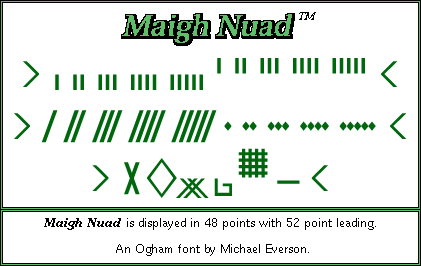
Maigh Nuad is a standard Ogham font suitable for scholarly publication. It is identical with Beith-Luis-Nion, having strong, clear strokes and notched vowels, but it has no stemline. This font is encoded according to I.S. 434:1999 and Unicode.